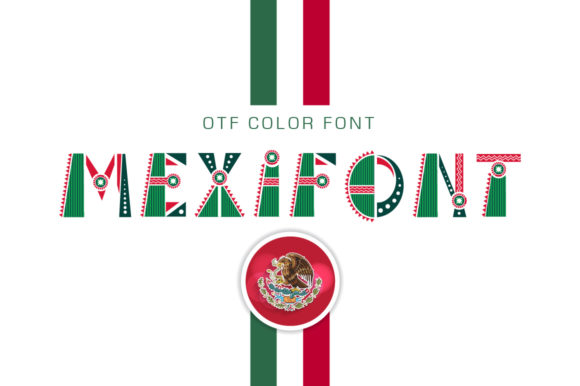
Unleash Your Creative Spirit with Mexifont: The Color Explosion That Electrifies Your Designs!
Prepare to be captivated by Mexifont, a chromatic masterpiece that dances across your screen with vibrant hues and playful characters. This extraordinary color font, designed with precision by the talented Peliken, is a true feast for the eyes, inviting you on a visual adventure like no other. Dive into a spectrum of colors as each letter bursts with radiant energy, transforming your designs into captivating expressions of art.
With Mexifont, mundane words transform into captivating statements, demanding attention and igniting emotions. Its unique charm enchants quotes, turning them into timeless treasures that resonate with your audience. Imagine your words adorning t-shirts, becoming vibrant expressions of personal style. Unleash your creativity and envision Mexifont as your design companion, adding a touch of magic to sports souvenirs, making them cherished keepsakes that celebrate athletic triumphs.
Indulge in the rich flavors of Mexican culture with Mexifont as your culinary companion. Showcase mouthwatering dishes on menus and packaging, tantalizing taste buds with every glance. Let Mexifont paint a vibrant picture of your culinary creations, inviting food enthusiasts on a gastronomic journey they won't soon forget.
Embrace Mexifont, the chromatic wonder that invigorates your designs with a symphony of colors. Say goodbye to ordinary fonts and embark on an artistic odyssey where every word carries the weight of emotions and every design tells a captivating story. Mexifont beckons you to unleash your creative spirit and paint the world with your unique artistic vision.